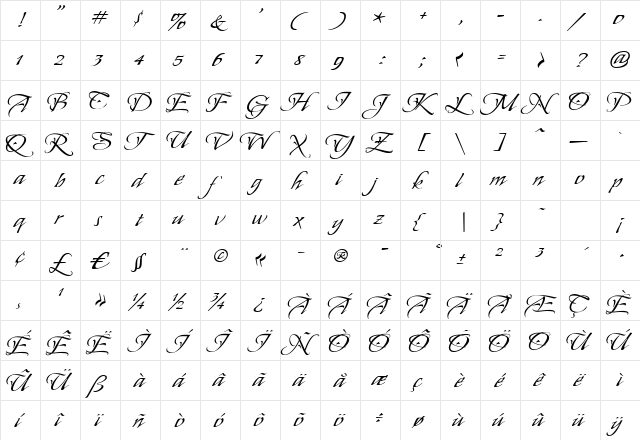
MysoulOne ROB
Design Context for MysoulOne Typeface
MysoulOne is a composed and adaptable typeface that performs quietly and consistently across a wide range of design contexts.
Pro Tip: Pair MysoulOne with a font of contrasting weight or personality to build a more expressive typographic hierarchy.